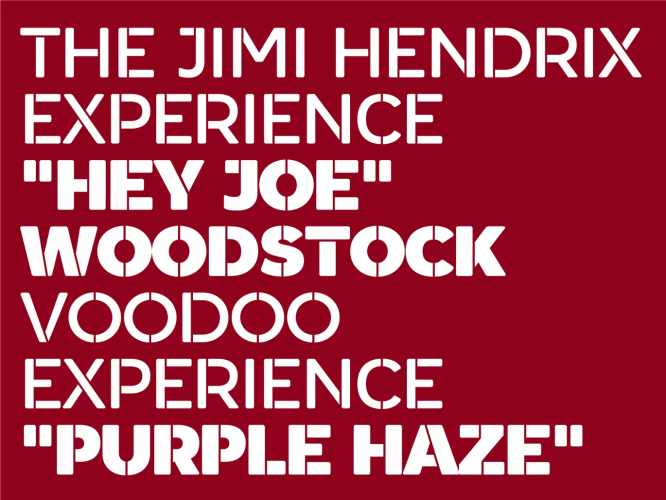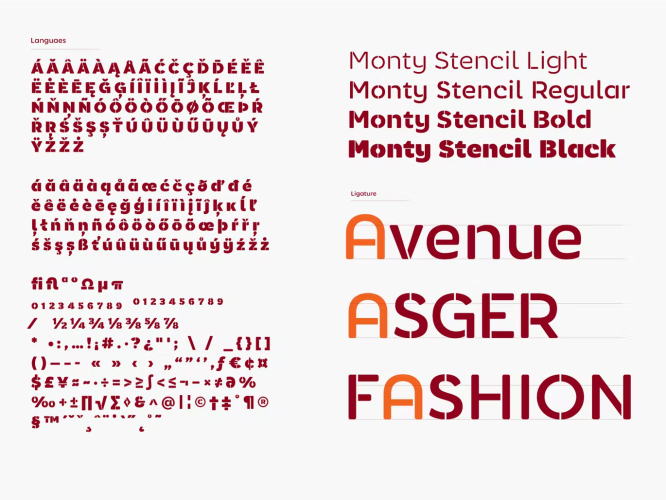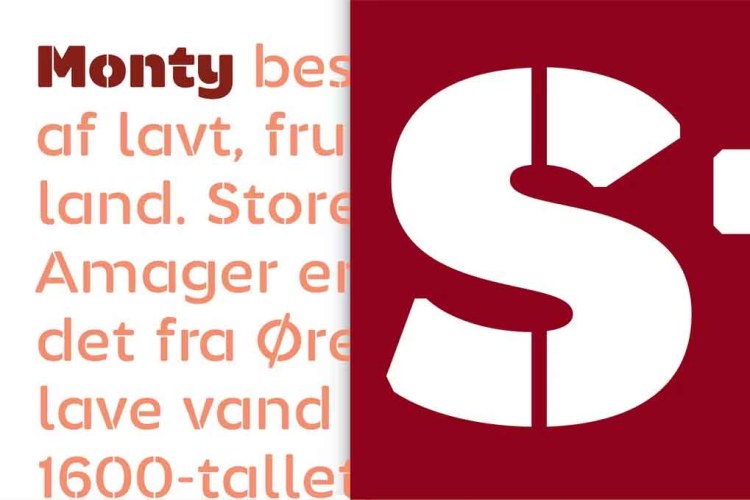
Monty Stencil Font
Monty Stencil is a new font family characterized as grotesque sans serif. The dynamics of the stencil letters G, K and A adds an additional sharpening and a heavy rounded softness to all of scripture and provide extra versatility, which makes Monty an excellent tool for a variety of purposes, from signage, posters, posters for branding and editorial design. The font is designed for various use. Set it to task for marketing, packaging, editorial work, branding and even projects on the screen.
Where Monty Stencil Font works best
Monty Stencil Font keeps its shape at 14 and 16 pixels, which is where interface text actually lives. Numbers and capitals stay distinguishable in tables.
Presentations are read at a distance; a clean sans with a strong bold is the safest hierarchy you can build in a hurry.
Simple letterforms survive angles, glare and movement, so Monty Stencil Font suits door signs, menus boards and exhibition panels.
What kind of work does Monty Stencil Font suit?
It sits in the Sans Serif Fonts group and reads as branding, editorial, sans serif, sans serif fonts. That makes it a candidate wherever those qualities help: headings, packaging, social graphics and brand work. Set it at the size you plan to use before deciding.